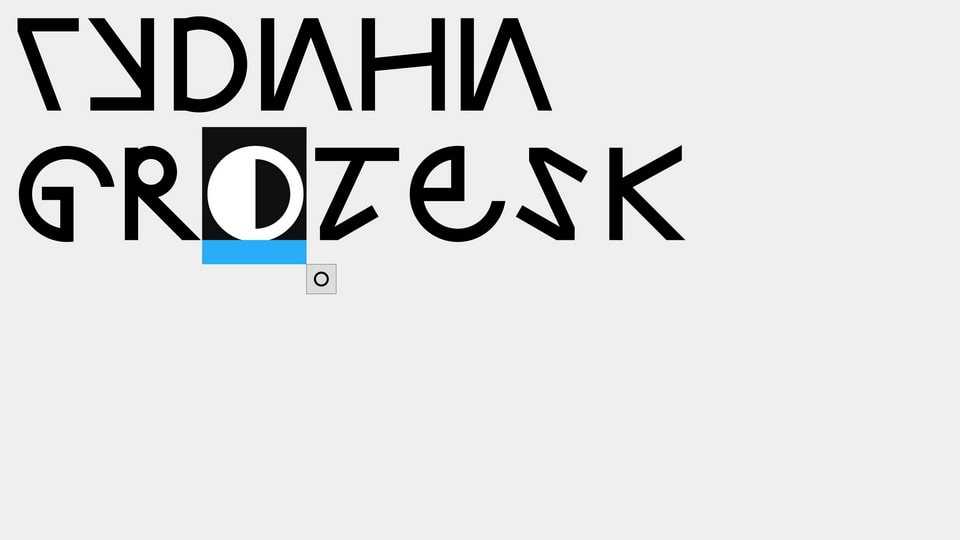
Download Gudini Grotesk font, an experimental display typeface based on pure geometry with references to the Bauhaus and minuscule German writing. Gudini Grotesk font is best for posters, album artworks and eye-catching typography.